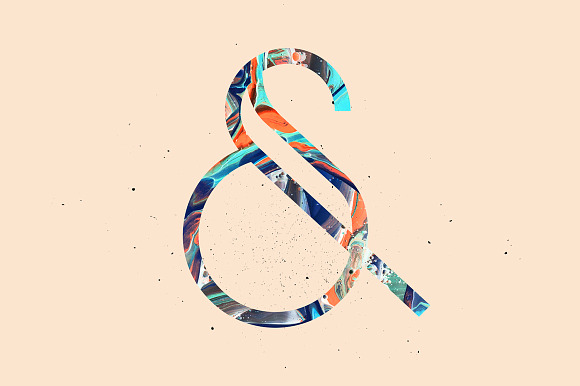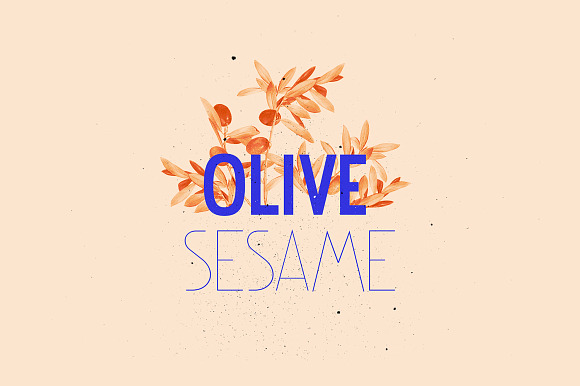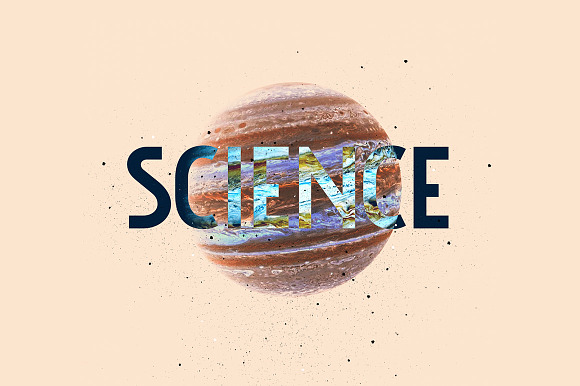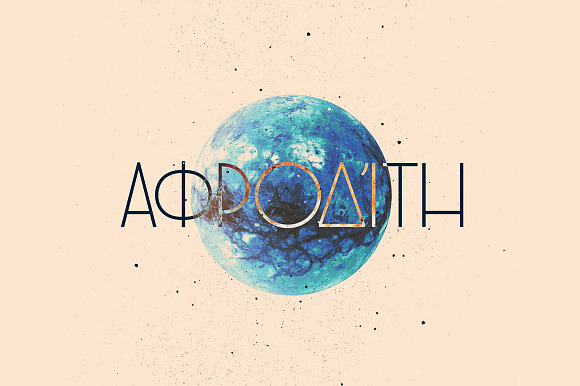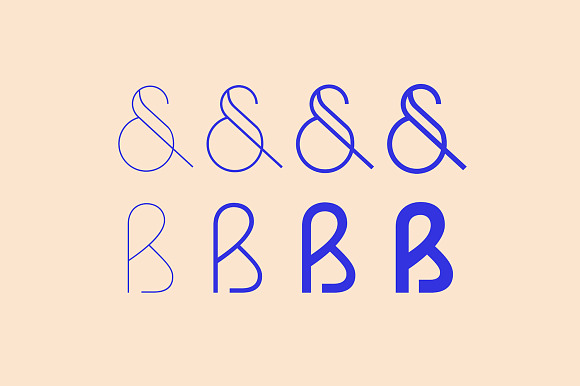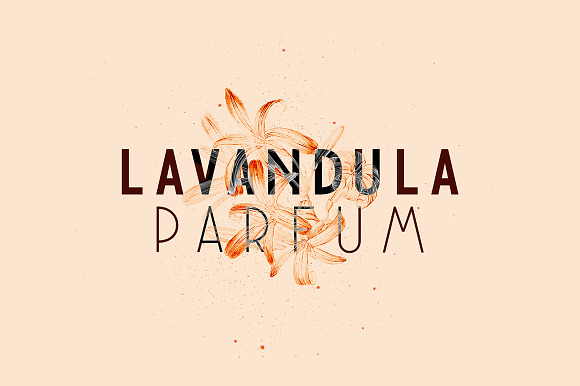
NovaDeco Type Family
NovaDeco is a display typeface inspired by the most beautiful epoch, the Art-Deco. It was designed to bring the mood of the age, while being timeless at the same time. The final result is a beautiful and unique contemporary aesthetic that is perfect for editorial, branding, logotypes and headlines. NovaDeco is available in 4 weight: Light, Medium, Bold and Extra Bold. Perfect for prints, typography quotes, greeting cards, branding and more! The font have 411 glyphs and includes 4 weights: NovaDeco Light (OTF, TTF) NovaDeco Medium (OTF, TTF) NovaDeco Bold (OTF, TTF) NovaDeco Extra Bold (OTF, TTF) Language support: Latin, Western European, Central European and South Western European. Support GREEK too!